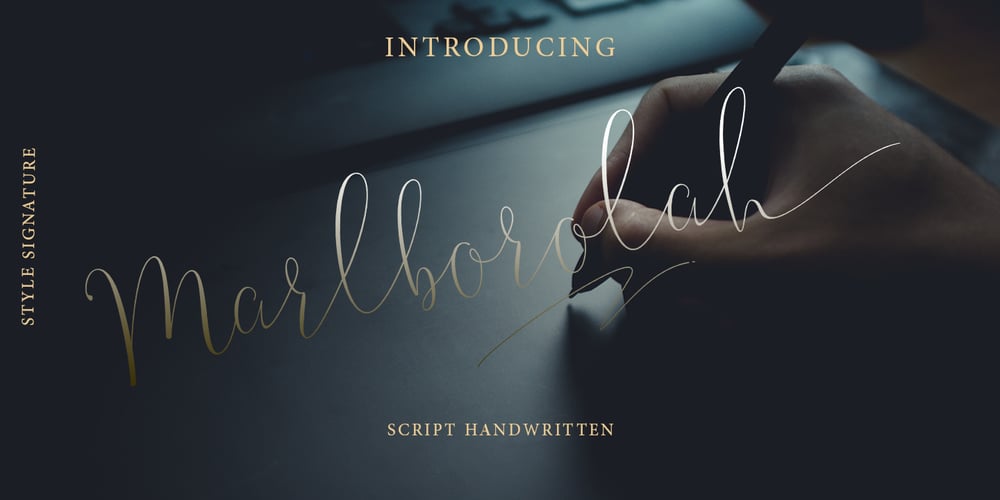
Marlborolah Font Family was designed by Teuku Muhammad Zaki and published by Zaki Creative. Marlborolah contains 1 styles and family package options. Marlborolah is a modern handwritten script design, including Regular. This font is casual and beautiful with swash. Can be used for various purposes. such as logos, product packaging, wedding invitations, branding, headlines, signage, labels, signatures, book covers, posters, quotes, and moreMarlborolah includes a change of the OpenType language style, binding and international support for most Western languages. To activate the OpenType Stylistic alternative, you need a program that supports OpenType features such as Adobe Illustrator CS, Adobe Indesign & CorelDraw X6-X7, Microsoft Word 2010 or newer versions. How to access all alternative characters using Adobe Illustrator:Marlborolah is coded with PUA Unicode, which allows full access to all additional characters without having to design special software. Mac users can use the Font Book, and Windows users can use Character Map to view and copy one of the additional characters to insert into your favorite text editor / application. How to access all alternative characters, using Windows Character Map with Photoshop:If you need help or have questions, please let me know. I am happy to help ๐ Thank you & Congratulations on Designing!